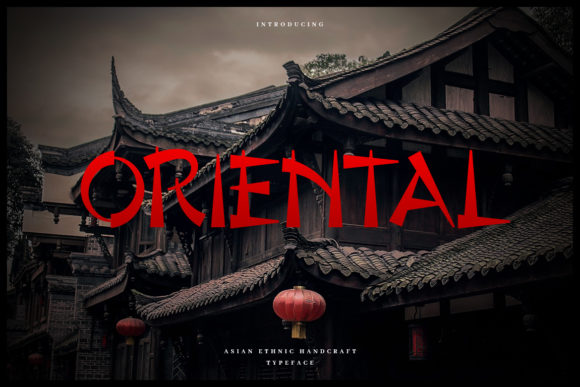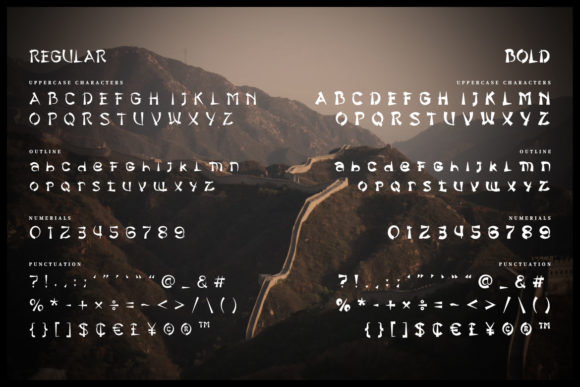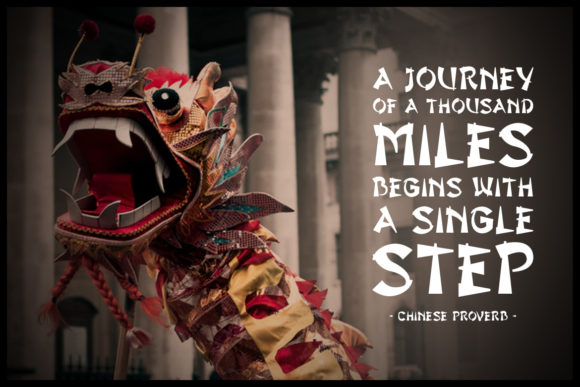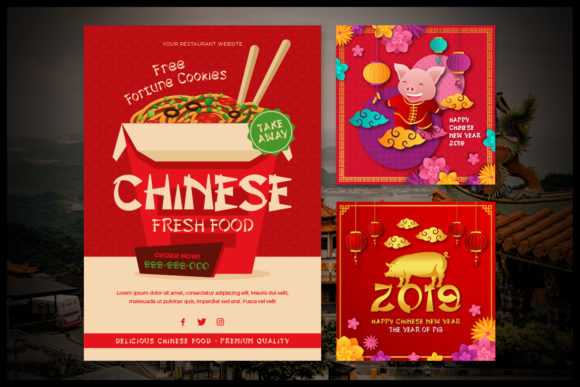
Oriental Font
About the Oriental Font
Meet Oriental Font, a stunning font that brings a touch of elegance and professionalism to any design. Oriental is a bold and solid display font that has authentic chinese traditional feeling. This font will look stunning in games, flyers, posters, movies and everything that needs a unique look!
Oriental’s strong presence makes it ideal for headlines, logos, and short impactful text in branding projects, posters, and game titles. It’s less suitable for body copy or UI elements where readability over long stretches is crucial; its bold strokes can hinder legibility in smaller sizes or continuous paragraphs.
Consider pairing Oriental with a clean sans-serif like Helvetica Neue for a modern contrast, or a delicate script font like Playfair Display for a touch of elegance. For a more traditional feel, a restrained serif like Garamond would complement its weighty forms.
The overall personality of Oriental is bold and authoritative, conveying a sense of tradition and strength. It’s a powerful choice for brands aiming for a sophisticated yet commanding image.
Oriental Font Usage Examples
Oriental Font Example